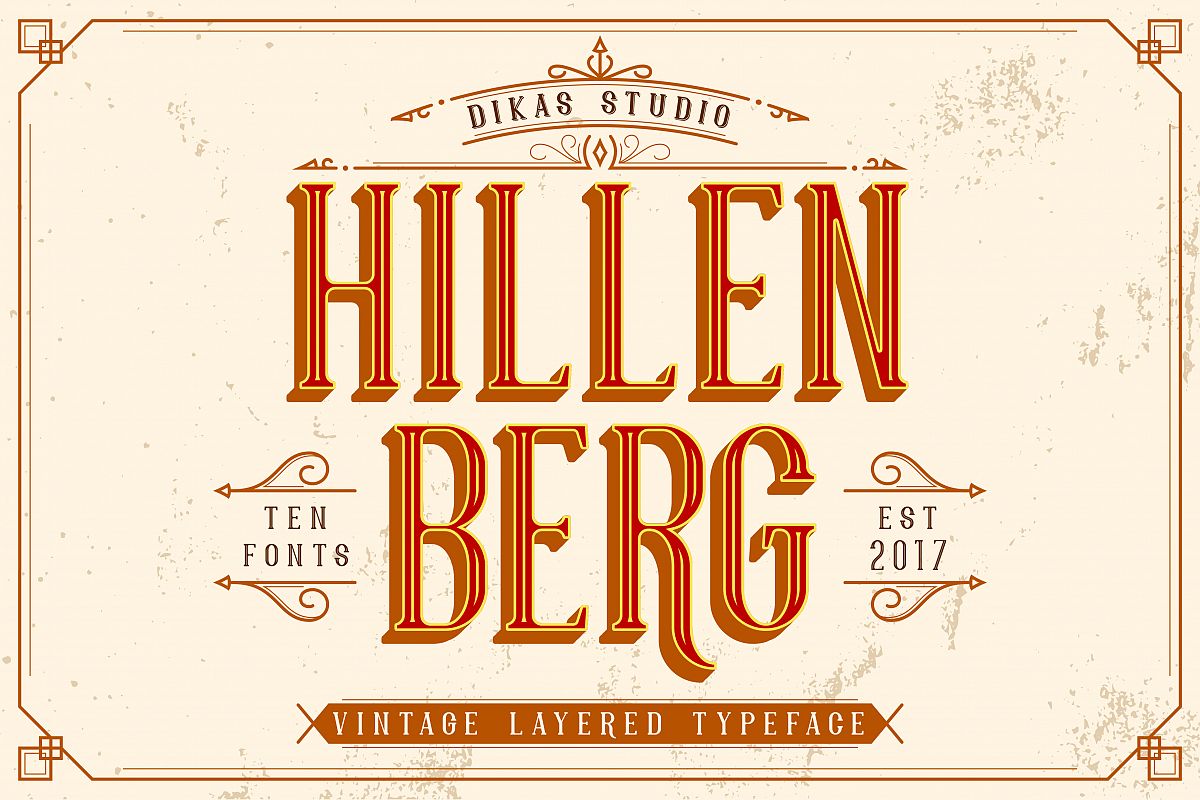
Hillenberg have 10 Style : Regular, Extrude, Extra Inline, Extra Shadow, Outline, Shadow, Inline, Inline Shadow, Pres, Press Shadow with vintage serif character inspired from beer and brewery. You can mix and match the layered font and Extras Ornament, its very helpfull to get Vintage design. Suitable and applicable to create vintage design, branding, logos, product packaging, invitation, qoutes, t-shirt, label poster etc.
Feature
• Punctuation and Number
• Multilingual Language
• Alternate Character & Ligature